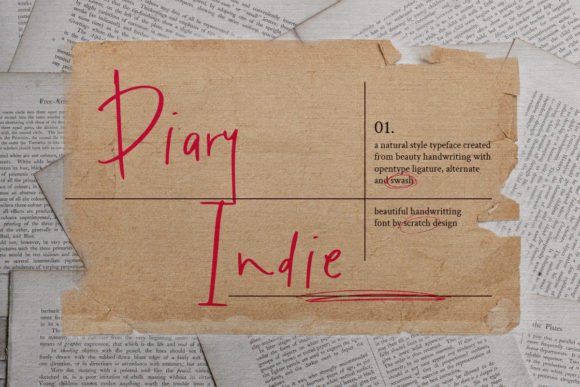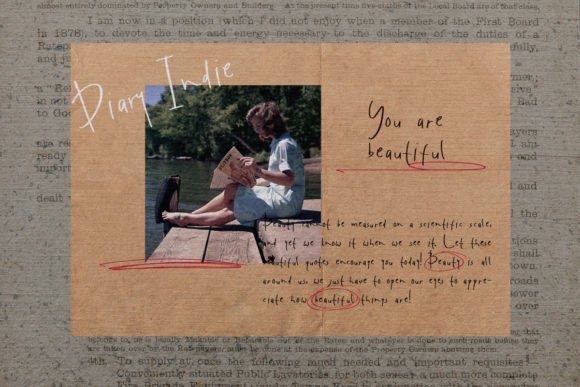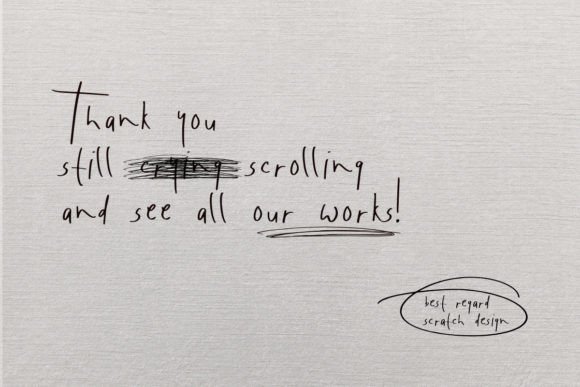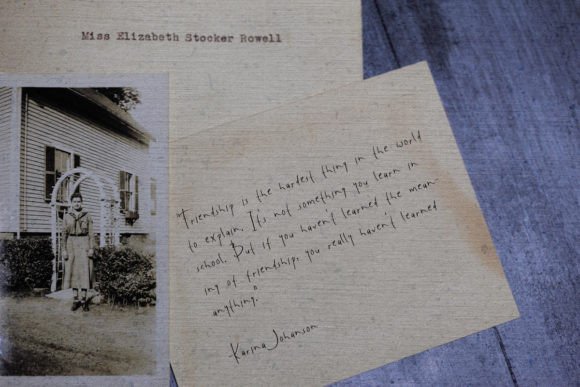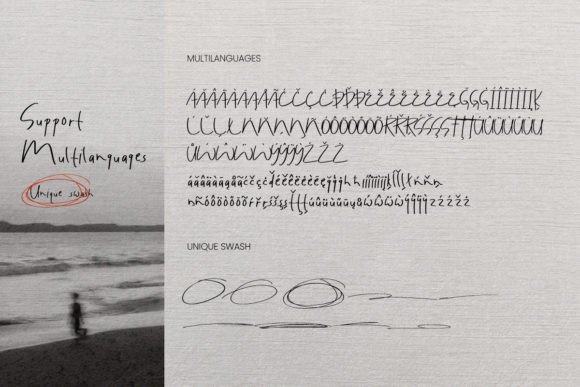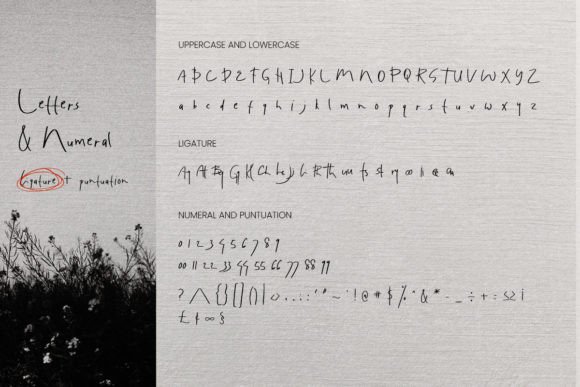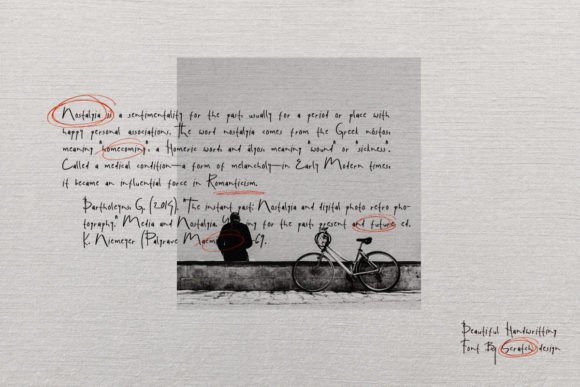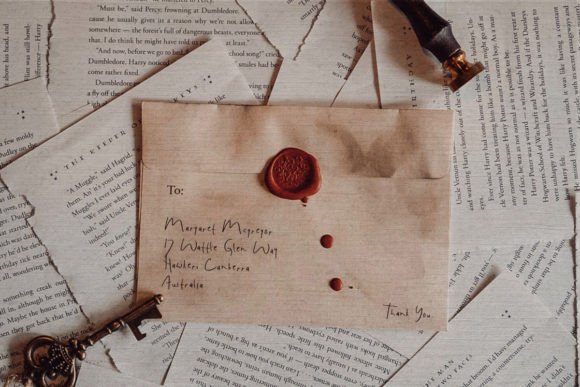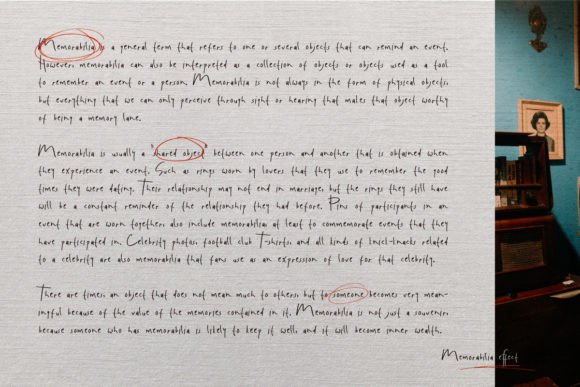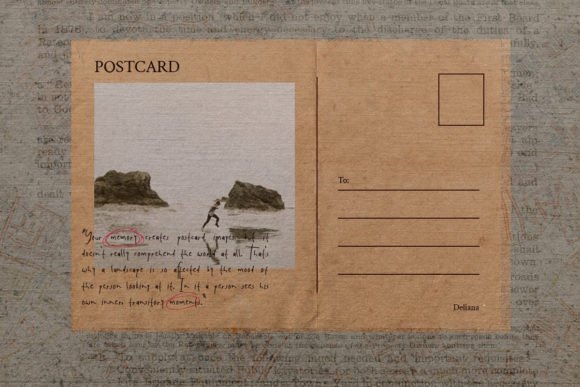
Diary Indie Font
About Diary Indie Font
Diary Indie font is an authentic handwritten typeface designed to bring a natural and genuine touch to your creative projects. When you download Diary Indiefont, you add a unique, personal style to your font collection that enhances every design with a warm, handcrafted feel.
Authentic Handwritten Style
With its natural character and carefully crafted strokes, Diary Indiefont captures the essence of genuine handwriting. Download Diary Indiefont to bring a realistic and inviting look to your crafts, presentations, and digital artworks. This font’s charm lies in its simplicity and authenticity.
Perfect for Every Occasion
Whether you’re creating greeting cards, branding materials, social media posts, or digital presentations, Diary Indiefont fits seamlessly into any project. Download Diary Indiefont and experience how this versatile font can become your favorite go-to choice for all your design needs.
Enhance Your Creative Projects
Adding Diary Indiefont to your font library means giving your work a distinctive and heartfelt appeal. Its natural handwriting style makes your designs stand out by adding personality and warmth. Use it for invitations, logos, or any creative project that benefits from a handcrafted look.